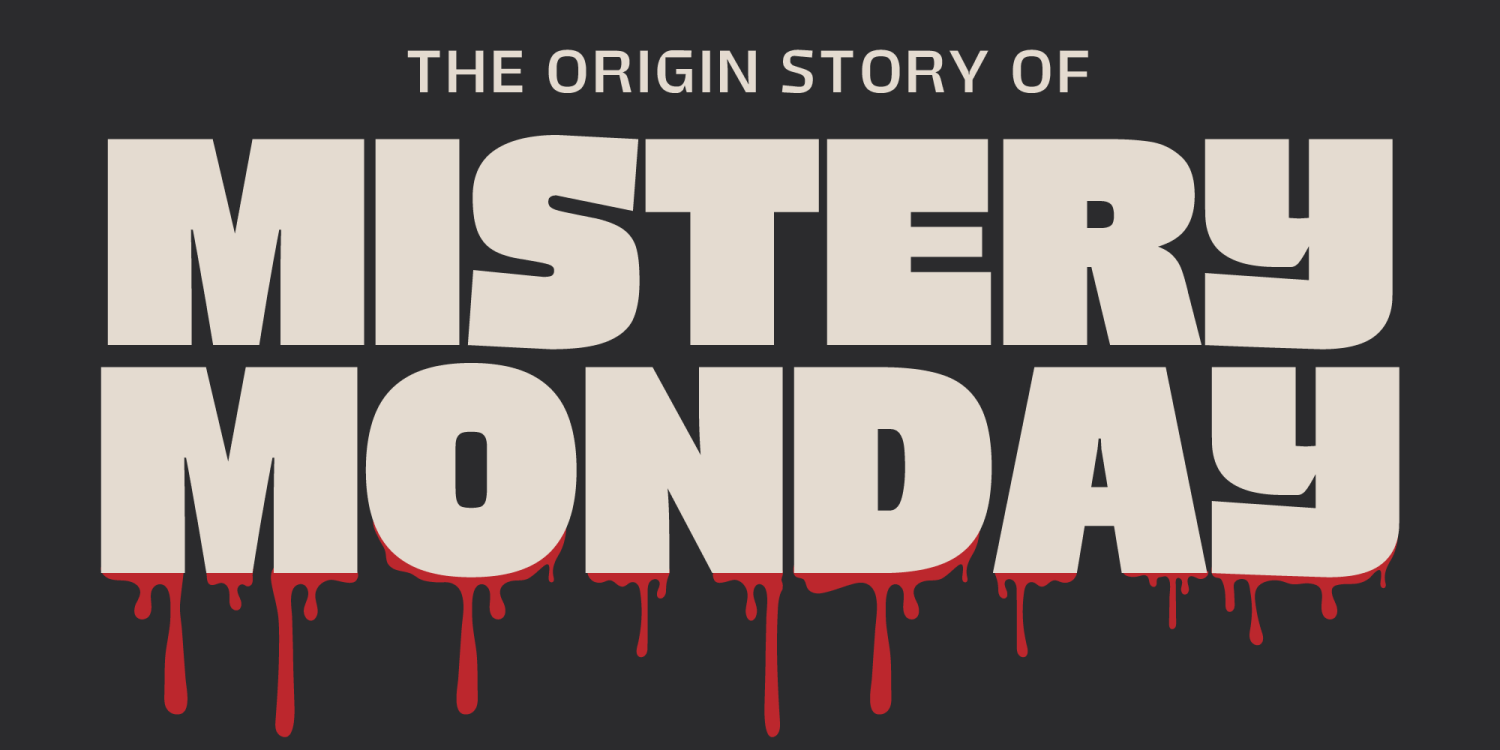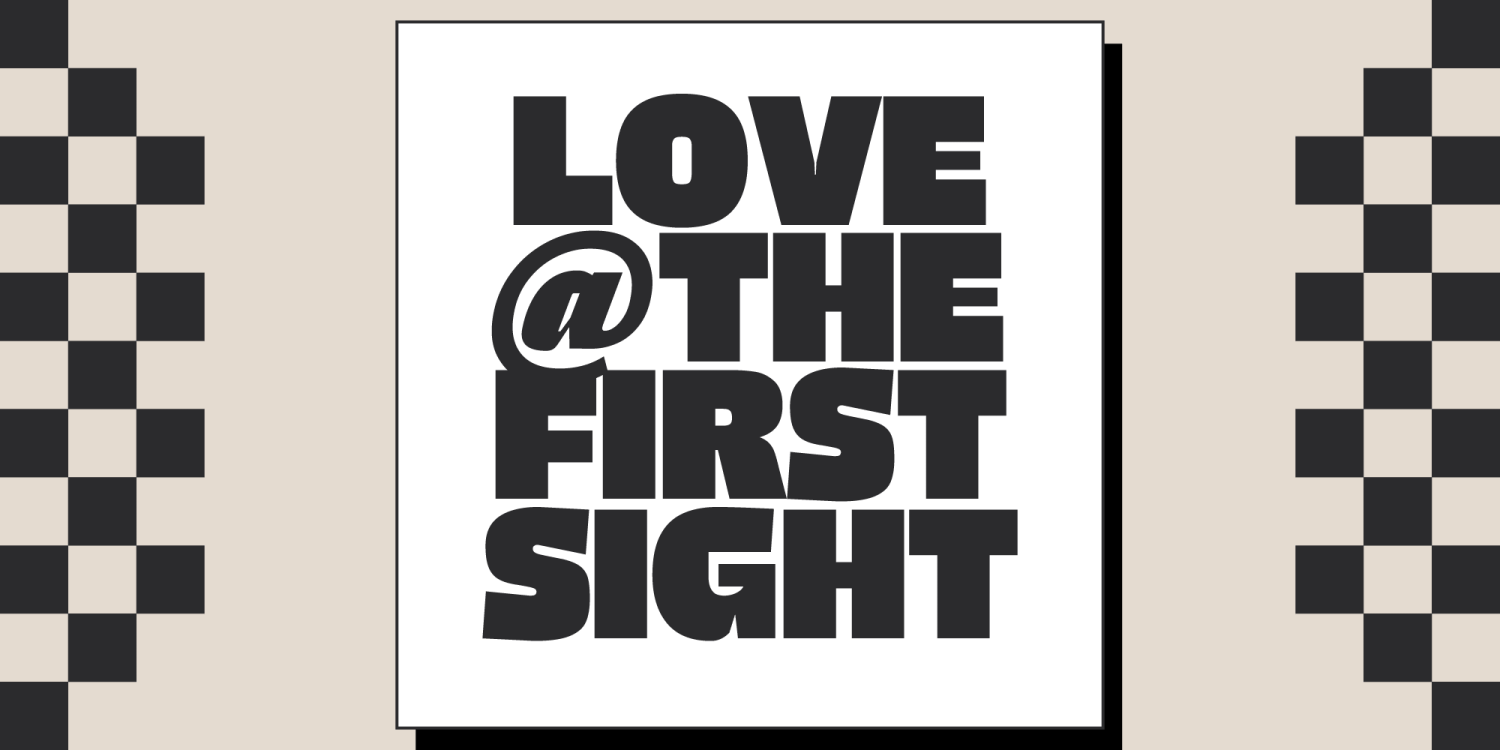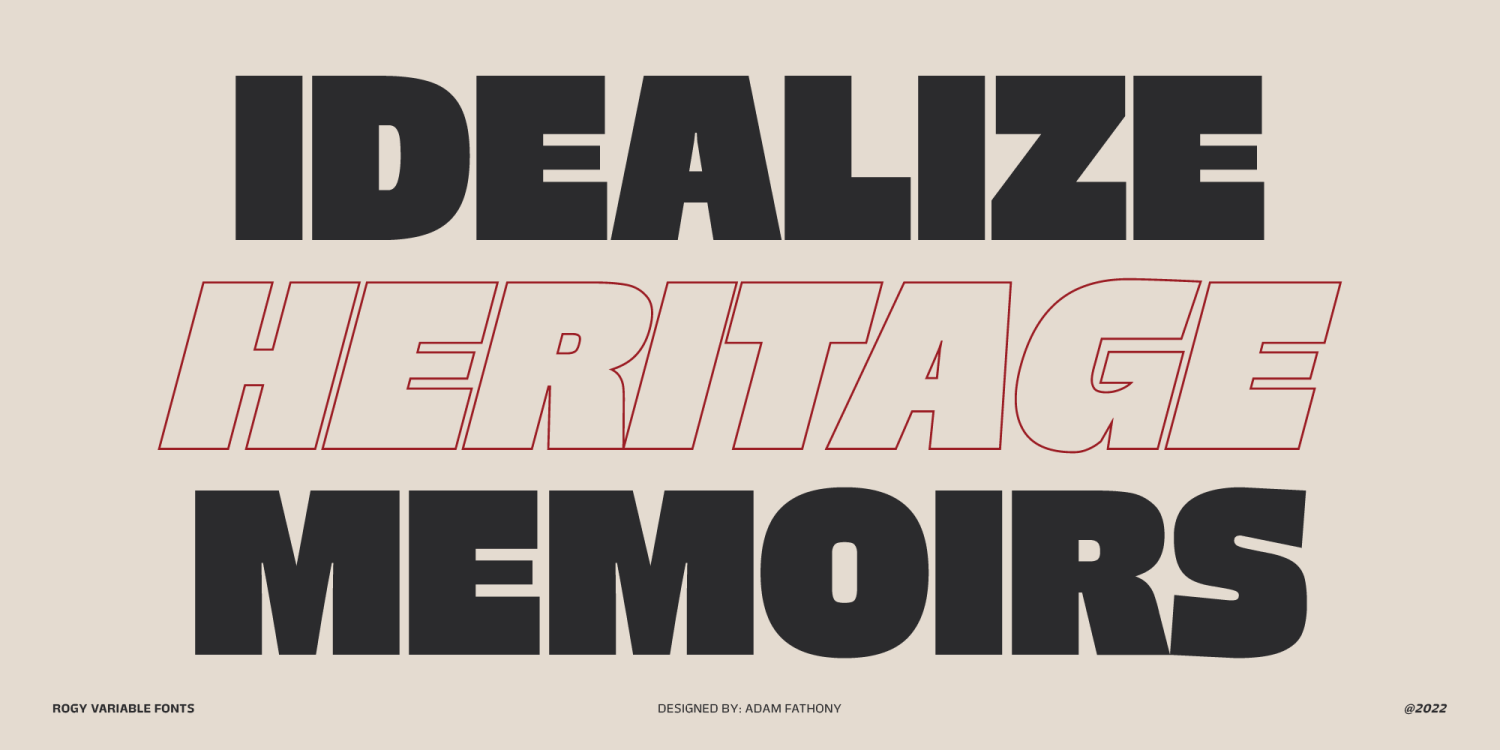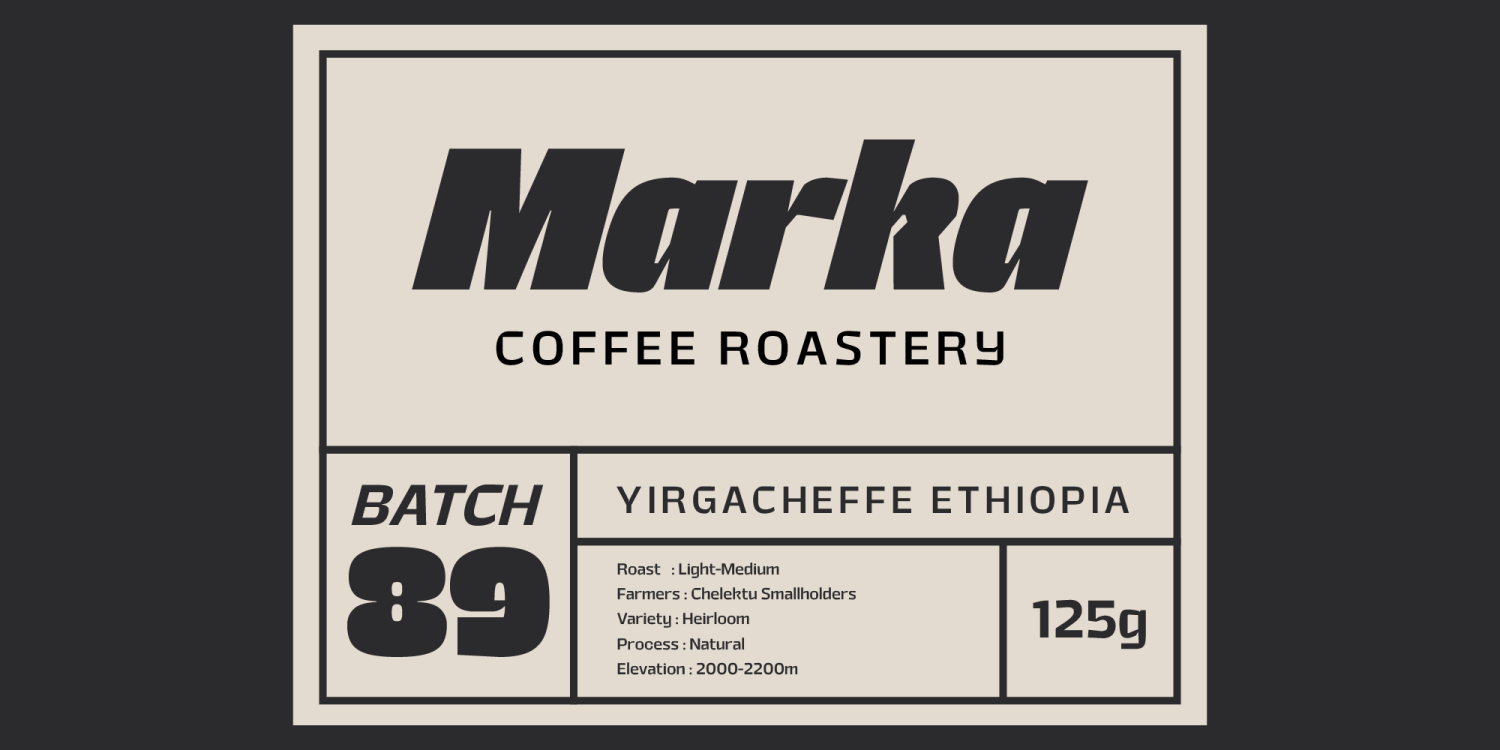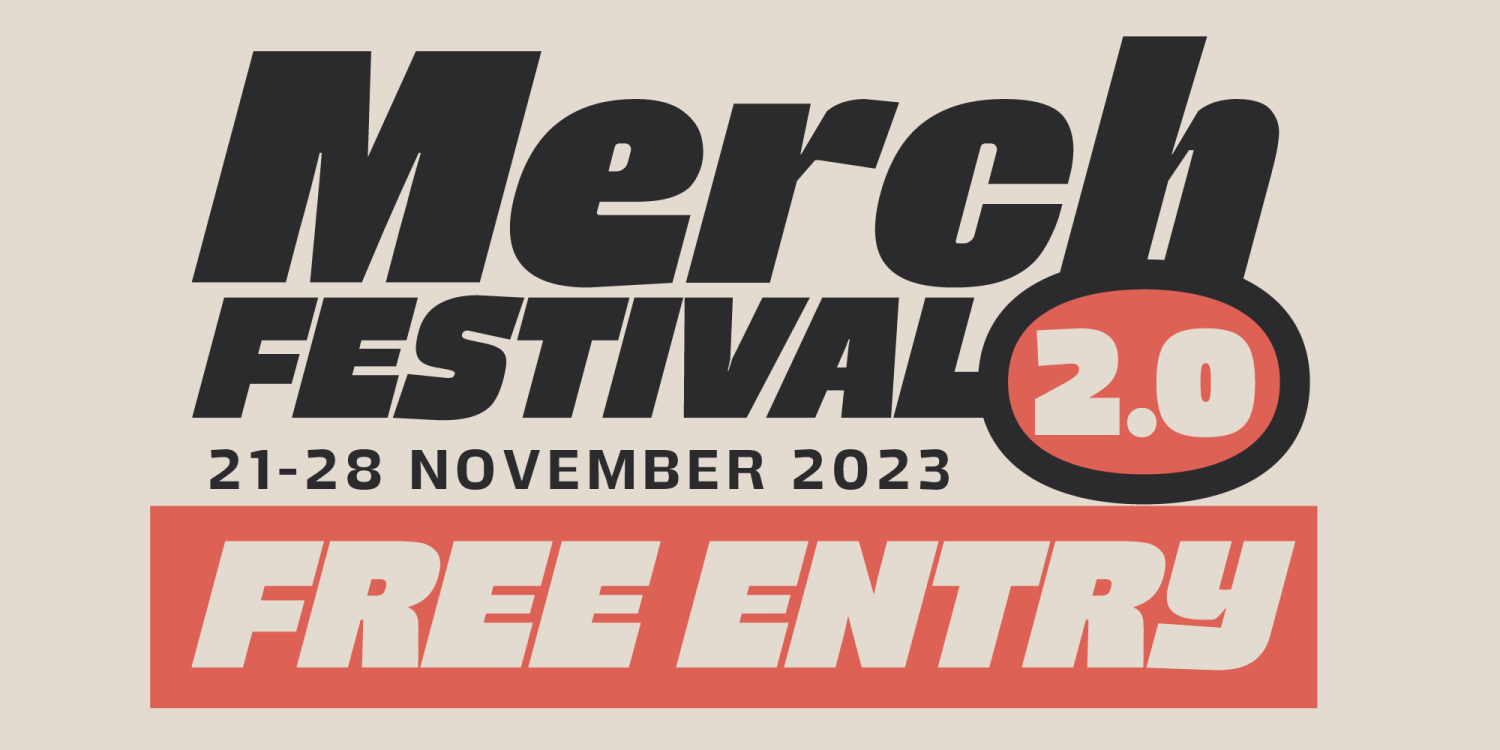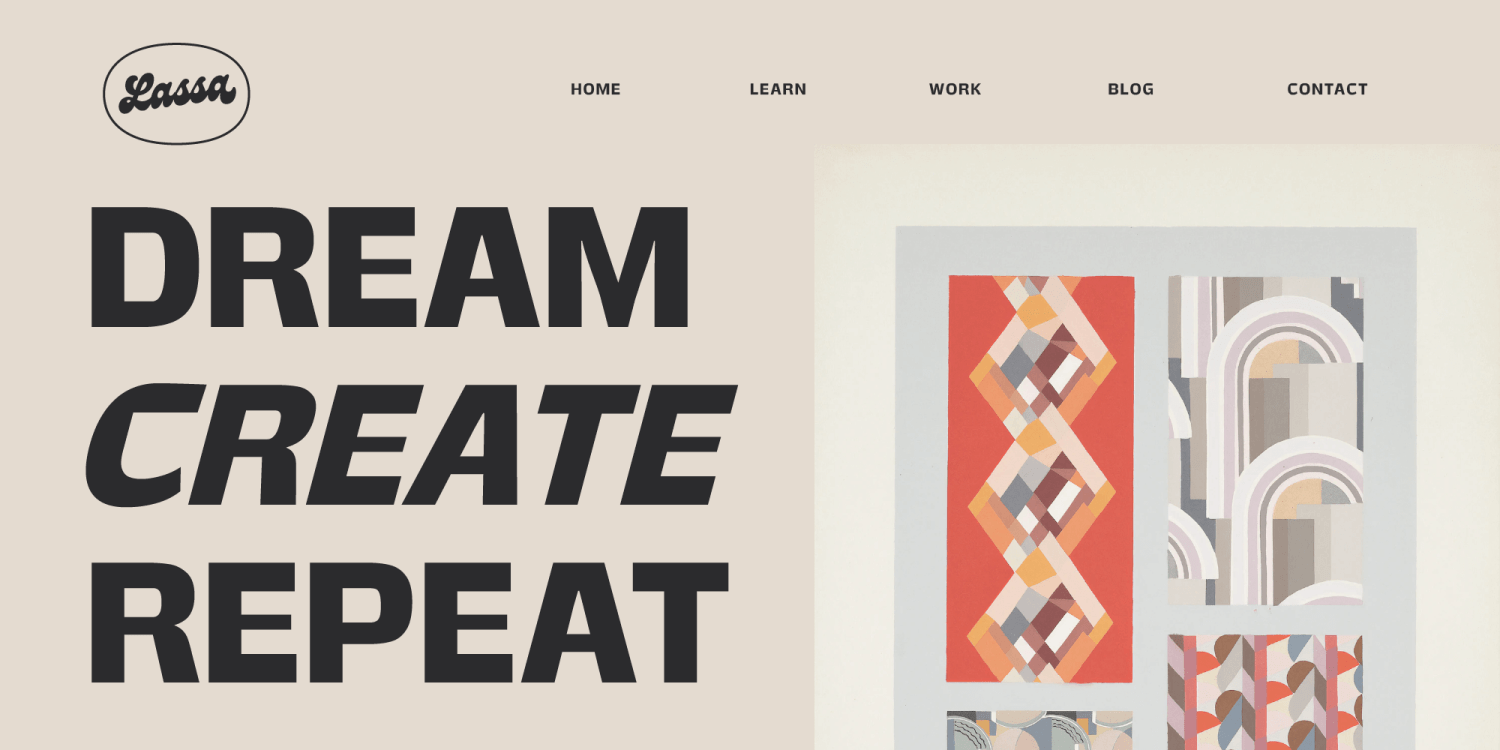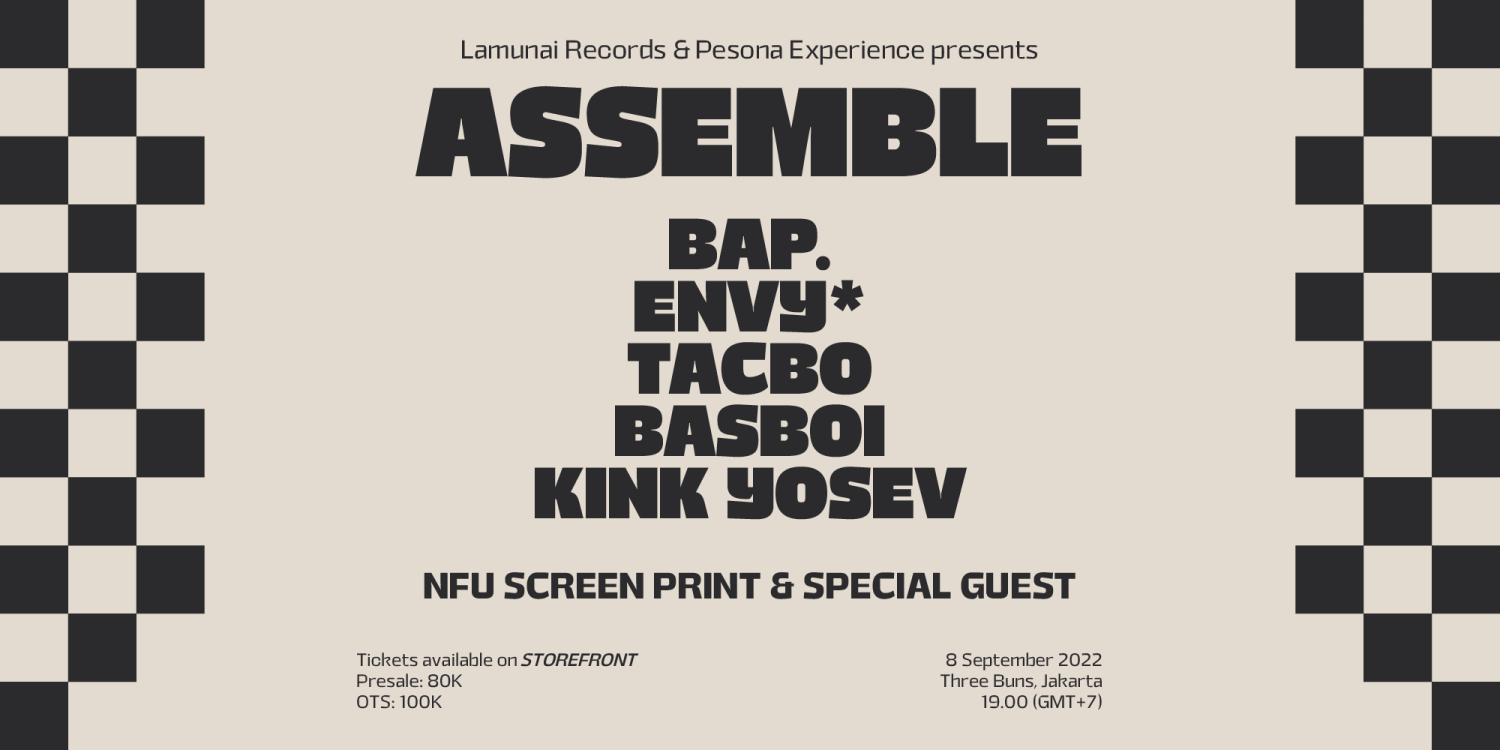
Rogy
Rogy is a modern variable font. Basically, this is a Sans with rigidity and a squared look yet very legible with various widths and italics that you can explore, combine, create, and help you design something. The Bolder the Stronger. It has defined Rogy. The bold and italic versions of this font are very good for sports design.